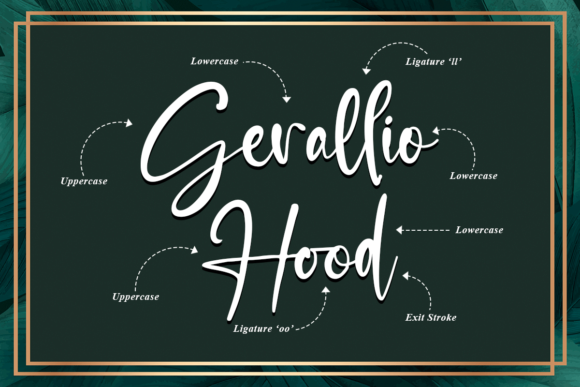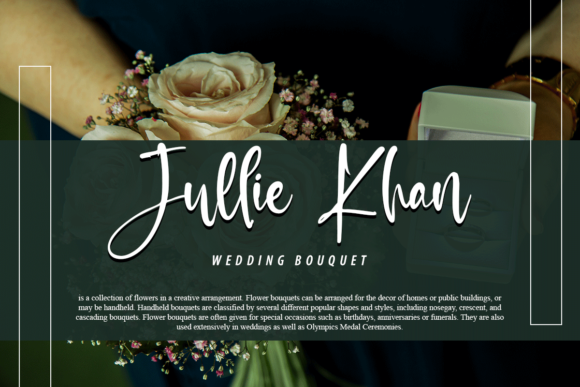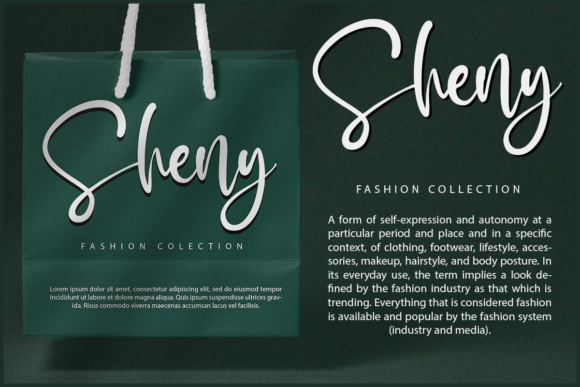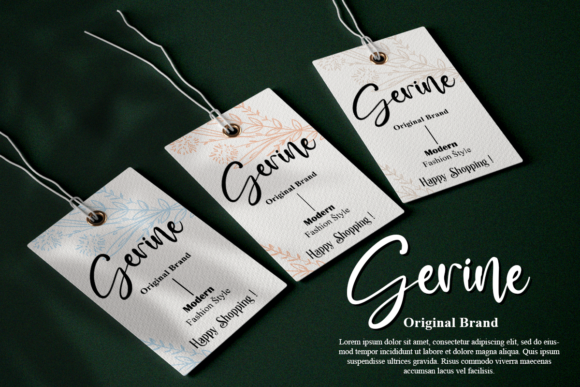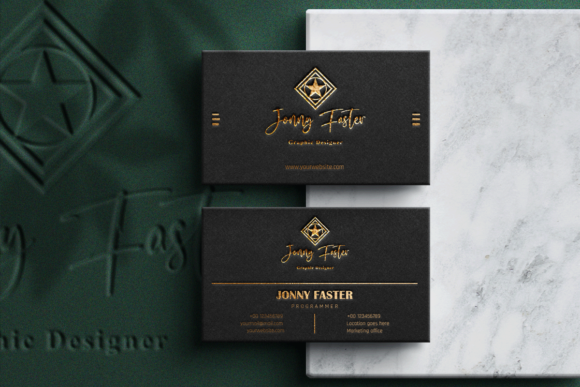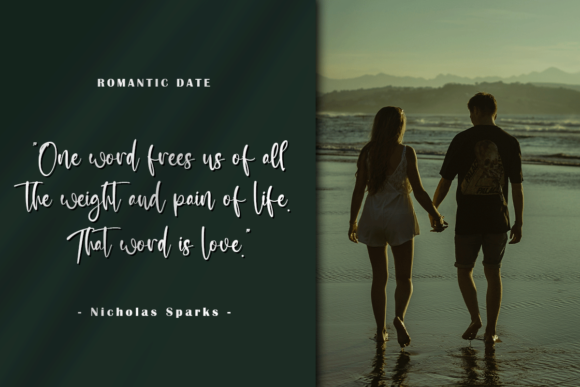
Introducing Freya Bowie Font: Elevate Your Designs with Elegance and Sophistication
Are you on the hunt for a font that exudes class, sophistication, and a touch of modern flair? Look no further than the Freya Bowie Font. This exquisite handwritten font is masterfully designed to capture the hearts of designers and crafters alike, making it a true favorite in the world of typography.
The Perfect Blend of Classic and Contemporary
Freya Bowie Font strikes the perfect balance between traditional calligraphic influences and modern sensibilities. Its classy, elegant feel is reminiscent of timeless calligraphy, while its fresh and contemporary twist ensures it remains relevant in today’s design landscape. Whether you’re working on a wedding invitation, a branding project, or a digital platform, Freya Bowie Font is the perfect choice to elevate your designs to new heights.
What Makes Freya Bowie Font Stand Out?
- Unique Character: Each letter in the Freya Bowie Font is carefully crafted to showcase a distinctive character that sets it apart from other fonts. Its uniqueness makes it an excellent choice for designers looking to create memorable and impactful designs.
- Versatility: Freya Bowie Font is incredibly versatile, making it suitable for a wide range of design applications, from elegant stationery and wedding invitations to sophisticated branding and digital content.
- Legibility: Despite its elegant and cursive nature, Freya Bowie Font maintains excellent legibility, ensuring that your message is conveyed clearly and effectively.
- Emotional Connection: The font’s warm and inviting feel helps create an emotional connection with your audience, making it perfect for projects where you want to evoke a sense of luxury, sophistication, or romance.
How to Use Freya Bowie Font in Your Projects
Integrating Freya Bowie Font into your designs is a straightforward process that can significantly enhance the aesthetic appeal of your projects. Here are a few ideas to get you started:
- Wedding and Event Stationery: Use Freya Bowie Font to create stunning wedding invitations, save-the-date cards, and event programs that set the tone for a memorable occasion.
- Branding and Packaging: Add a touch of elegance to your brand’s identity with Freya Bowie Font. It’s perfect for luxury brands, boutiques, and businesses in the hospitality industry.
- Digital Content: Enhance your digital platforms, such as websites and social media graphics, with the sophisticated feel of Freya Bowie Font. It’s an excellent choice for headings, titles, and quotes.
- DIY Crafts: Crafters can use Freya Bowie Font for various DIY projects, including handmade cards, journaling, and decorative signs.
Tips for Maximizing the Impact of Freya Bowie Font
To make the most of Freya Bowie Font, consider the following tips:
- Pair it with Complementary Fonts: Combine Freya Bowie Font with simpler, sans-serif fonts for body text to create visual contrast and enhance readability.
- Adjust Letter Spacing: Fine-tune the letter spacing to ensure optimal legibility and aesthetic appeal, especially in larger bodies of text.
- Use it Sparingly: While Freya Bowie Font is beautiful, using it sparingly can make it more impactful. Consider using it for headings or key messages.
Freya Bowie Font is more than just a typeface; it’s a design element that can transform your projects with its elegance, sophistication, and modern charm. Whether you’re a professional designer or a crafty DIY enthusiast, this exquisite handwritten font is sure to become a favorite in your toolkit. So why wait? Fall in love with Freya Bowie Font and bring your designs to the highest levels of creativity and refinement.